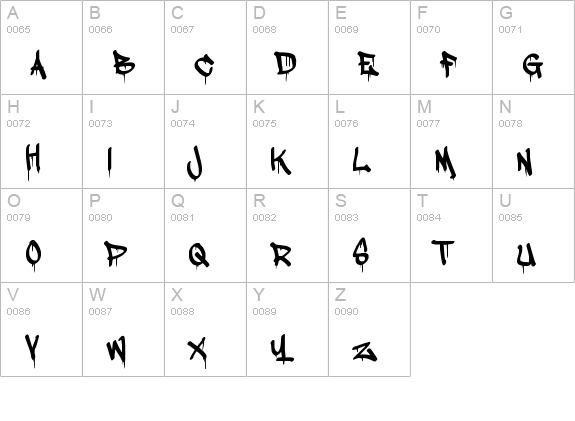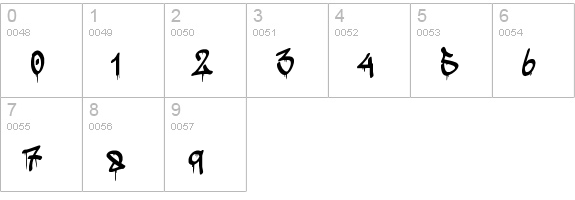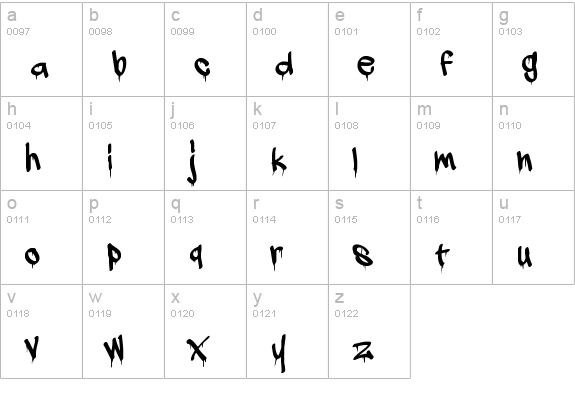
Introducing the mesmerizing and effortlessly cool Dripping Marker font, a stunning display typeface that will bring a touch of urban artistry to your designs. This font exudes an edgy and rebellious vibe, inspired by the raw energy of street graffiti and the vibrant colors that adorn city walls. With its unique hand-drawn style, Dripping Marker captures the essence of dripping paint, creating a visually striking effect that adds depth and character to any project. Each letter drips with an organic fluidity, as if it was freshly painted, giving your text a dynamic and captivating appearance. Whether you're looking to create eye-catching headlines, attention-grabbing logos, or striking posters, Dripping Marker is the perfect choice. Its bold and distinct letterforms make a powerful statement and instantly draw the viewer's attention. But here's the best part - Dripping Marker is completely free! Yes, you read that right. This incredible font is freely available to download at FontsMarket.com. Now you can unleash your creativity without any cost constraints. So, why wait? Don't miss out on the opportunity to add this incredible font to your collection. Download Dripping Marker now and let your designs ooze with urban style and artistic flair.